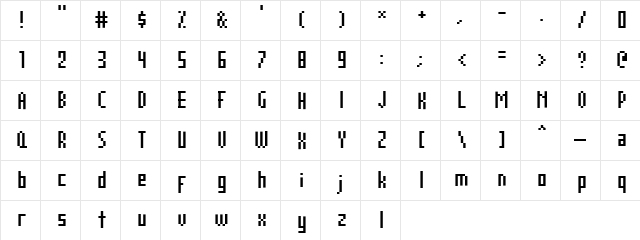
AuX DotBitC Compressed Regular
Design Context for AuX DotBitC Compressed Typeface
AuX DotBitC Compressed is rooted in pixel-grid construction, making it a natural fit for game UI, retro computing aesthetics, and digital nostalgia projects.
A natural choice for retro game titles, chiptune music branding, 8-bit UI, and digital nostalgia projects.
Pro Tip: Pair AuX DotBitC Compressed with flat colour palettes and simple geometric UI elements to reinforce its digital aesthetic.